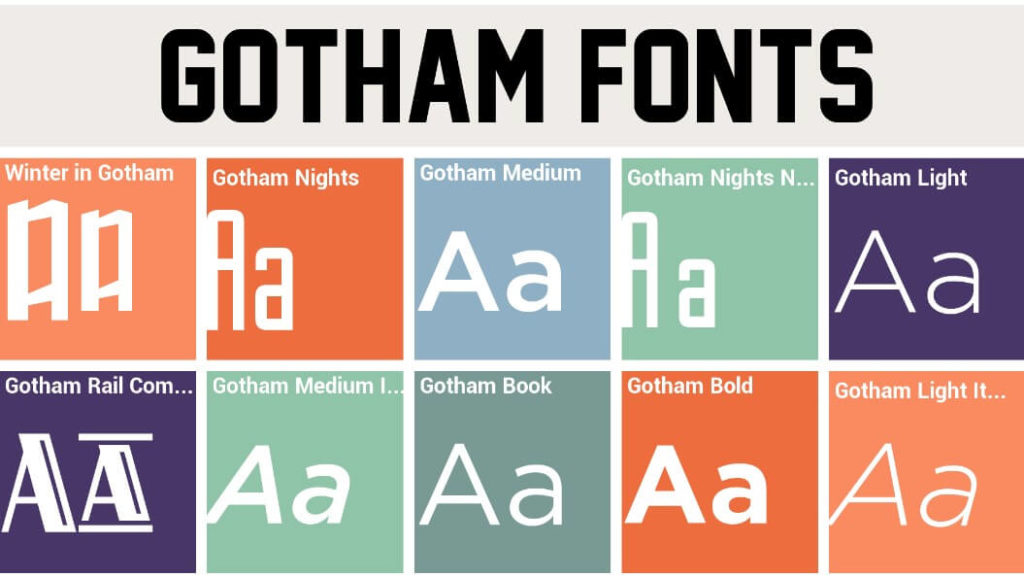
If you are a graphic designer then you must know that Gotham font family is one of the most used font around the web. Many designers would love to use this font in their designs to make them more professional and unique. You can also make your designs more beautiful by using this font.
There are many reasons to use a beautiful sans-serif font like Gotham font. One of the biggest advantages of using this font is that your design looks different than others in the market and help you to create designs and undertale logos and posters.